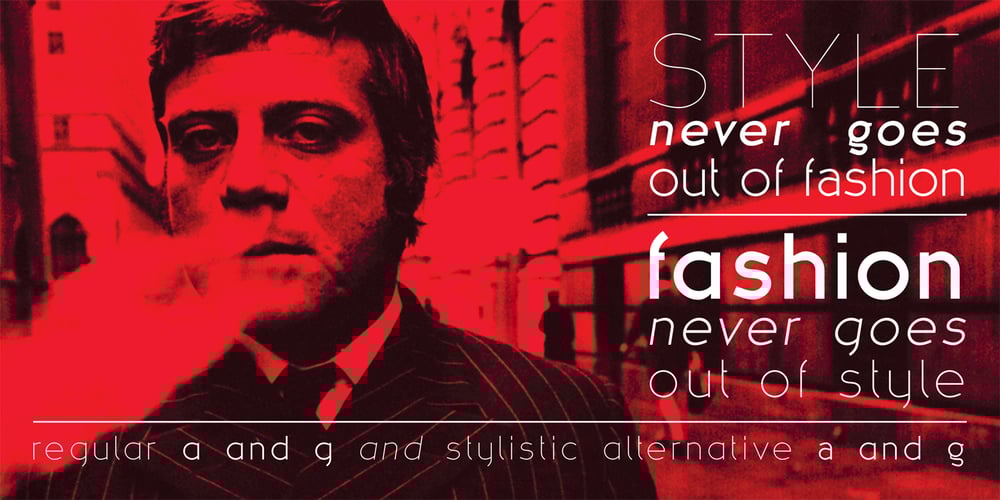
MB NOIR Font Family was designed by Ben Burford and published by Ben Burford Fonts. MB NOIR contains 8 styles and family package options. MB NOIR is a 4 weight with italics font family that visually has different layers of style, at first glance its a modern clean geometry based face with some nice retro touches, it also has hints of the vintage about it, with a nod to the art deco style, with alternates and ligatures it gives a lot of scope for its uses and works very well at large and small sizes.